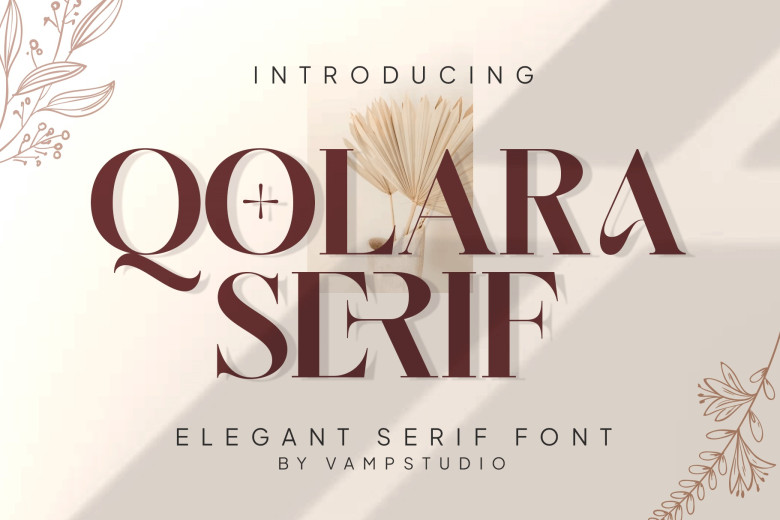
Qolara Serif Font
Qolara Serif is a modern elegant serif font designed by a team of skilled designers. This font is simple yet sleek and elegant – an excellent choice for large projects. Qolara Serif’s versatility makes it perfect for logos, branding wedding designs Social media posts advertising product labels photo product designs watermark invitations stationery or anything requiring elegance and modern style.